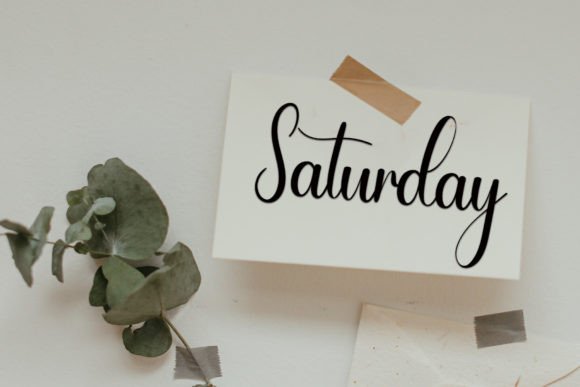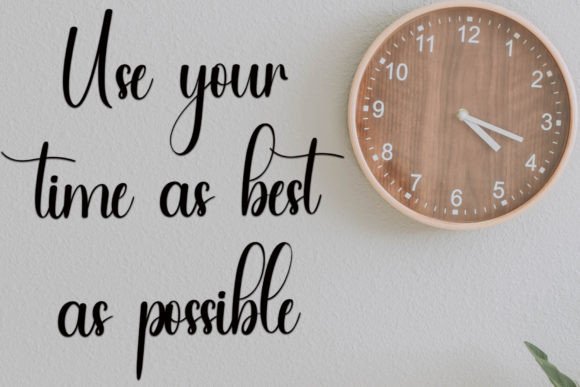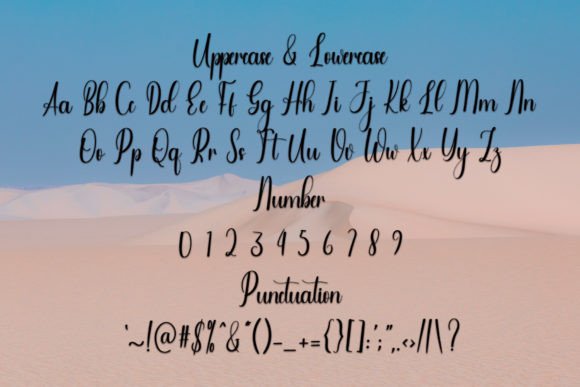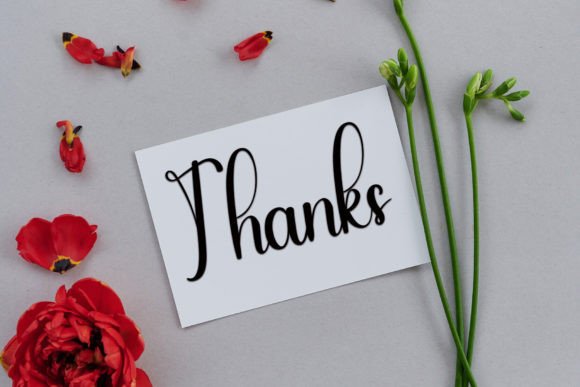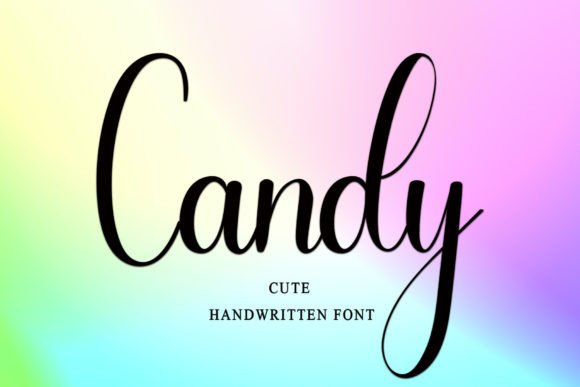
Candy Font: Elevate Your Designs with a Stylish Handwritten Touch
Are you looking for a font that adds a touch of elegance and sophistication to your designs? Look no further than the Candy Font, a stylish handwritten font that embodies a contemporary atmosphere and impeccable form. Inspired by timeless classic calligraphy, this font is perfect for designers and crafters seeking to elevate their projects with a beautiful and unique typographic style.
What Makes Candy Font Special?
Candy Font is a carefully crafted font that boasts a balanced and varied design, making it ideal for a wide range of applications. Whether you’re working on a branding project, a wedding invitation, or a digital product, this font is sure to enhance the beauty of your work. With its PUA (Private Use Area) encoding, you can easily access all the amazing glyphs and ligatures, giving you endless creative possibilities.
Key Features of Candy Font
- Stylish Handwritten Design: Candy Font features a stylish handwritten design that exudes elegance and sophistication.
- Contemporary Atmosphere: This font has a modern and fresh feel, making it perfect for designs that require a contemporary touch.
- Impeccable Form: The font’s impeccable form ensures that it looks great in any size or application.
- PUA Encoded: With PUA encoding, you can access all the glyphs and ligatures with ease, giving you more creative freedom.
- Balanced and Varied: The font’s balanced and varied design makes it suitable for a wide range of projects and applications.
Why Choose Candy Font?
There are many fonts available, but Candy Font stands out from the rest due to its unique combination of style, elegance, and versatility. Here are some reasons why you should choose Candy Font for your next project:
- Elegance and Sophistication: Candy Font adds a touch of elegance and sophistication to any design, making it perfect for projects that require a high-end feel.
- Flexibility: This font is highly versatile and can be used in a variety of applications, from branding and advertising to packaging and digital products.
- Easy to Use: With its PUA encoding, Candy Font is easy to use, even for designers who are new to working with fonts.
- Unique and Creative: The font’s unique design and glyphs ensure that your projects stand out from the crowd and showcase your creativity.
Tips and Tricks for Working with Candy Font
Here are some tips and tricks to help you get the most out of Candy Font:
- Experiment with Different Sizes: Try out different font sizes to see how Candy Font looks in various applications.
- Mix and Match with Other Fonts: Combine Candy Font with other fonts to create a unique and creative typographic style.
- Play with Glyphs and Ligatures: Use the font’s glyphs and ligatures to add visual interest and personality to your design.
Candy Font is a stylish handwritten font that offers a unique combination of elegance, sophistication, and versatility. With its PUA encoding, impeccable form, and balanced design, this font is perfect for designers and crafters seeking to elevate their projects with a beautiful and unique typographic style. Whether you’re working on a branding project, a wedding invitation, or a digital product, Candy Font is sure to enhance the beauty of your work.